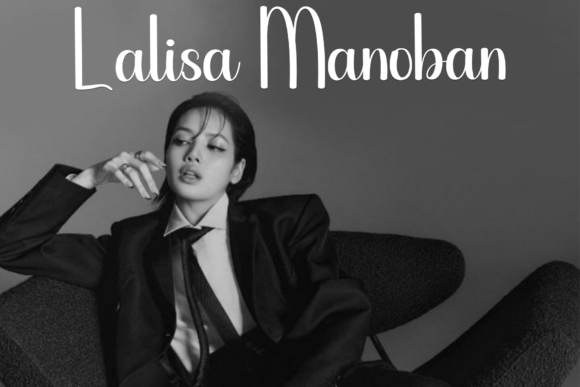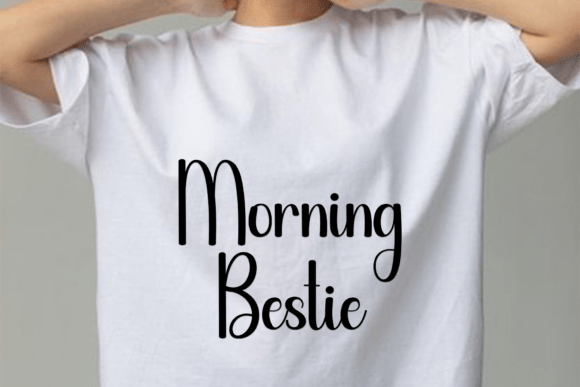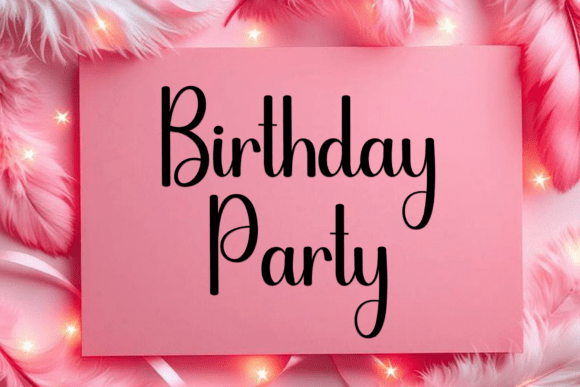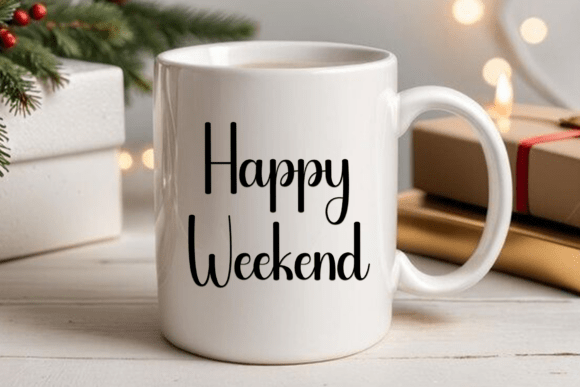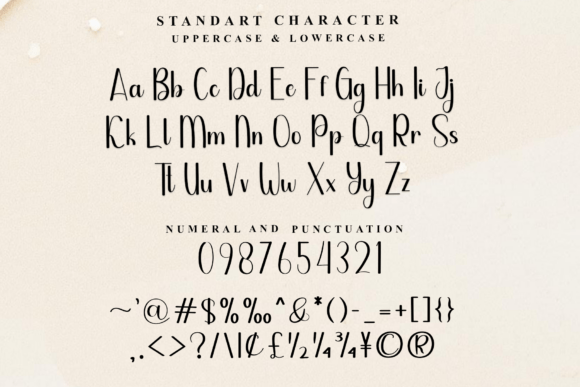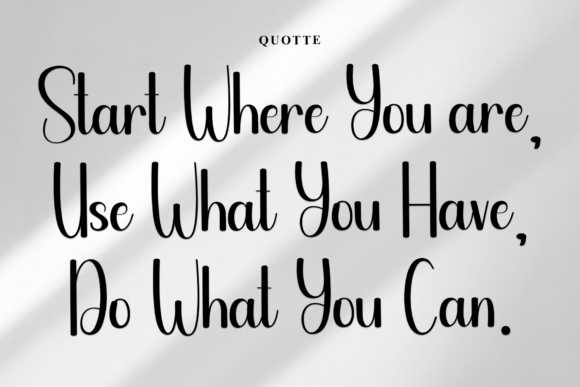
Discover the Charm of Green Clover Font: Elevate Your Designs with a Timeless Handwritten Style
Are you on the hunt for a font that adds a touch of elegance and whimsy to your designs? Look no further than the Green Clover Font. This lovely and timeless handwritten font is perfect for creating eye-catching logos, branding, and quotes that will leave a lasting impression on your audience. In this article, we’ll dive into the world of Green Clover Font and explore its unique features, benefits, and uses.
A Unique and Beautiful Touch
One of the standout features of Green Clover Font is its unique and beautiful touch. Every letter has been carefully crafted to bring a sense of personality and charm to your designs. The font’s handwritten style gives it a warm and inviting feel, making it perfect for designs that require a personal touch. Whether you’re creating a logo, branding materials, or quotes, Green Clover Font is sure to make your design come alive!
Green Clover Font is a versatile font that’s perfect for designers and crafters alike. Its timeless style makes it suitable for a wide range of design projects, from modern branding to vintage-inspired crafts. Whether you’re creating digital designs or handmade crafts, Green Clover Font is the perfect choice for adding a touch of elegance and sophistication.
Benefits of Using Green Clover Font
- Unique and eye-catching designs: Green Clover Font’s handwritten style and unique lettering make it perfect for creating designs that stand out from the crowd.
- Timeless appeal: Unlike trendy fonts that quickly go out of style, Green Clover Font has a timeless appeal that will keep your designs looking fresh for years to come.
- Versatile: Green Clover Font is suitable for a wide range of design projects, from logos and branding to quotes and crafts.
- Easy to read: Despite its decorative style, Green Clover Font is easy to read, making it perfect for designs that require a clear and concise message.
Uses for Green Clover Font
- Logos and branding: Create a lasting impression with a custom logo or branding materials that showcase your unique style.
- Quotes and posters: Add a touch of elegance and sophistication to your quotes and posters with Green Clover Font.
- Crafts and DIY projects: Use Green Clover Font to add a personal touch to your handmade crafts and DIY projects.
- Digital designs: From social media graphics to website headers, Green Clover Font is perfect for adding a touch of personality to your digital designs.
Tips for Using Green Clover Font
- Use it sparingly: While Green Clover Font is beautiful, it can be overwhelming if used too much. Use it sparingly to add a touch of elegance and sophistication to your designs.
- Pair it with complementary fonts: Pair Green Clover Font with complementary fonts to create a unique and eye-catching design.
- Experiment with colors and textures: Don’t be afraid to experiment with different colors and textures to add depth and interest to your designs.
In conclusion, Green Clover Font is a lovely and timeless handwritten font that’s perfect for designers and crafters alike. Its unique and beautiful touch, versatile style, and ease of use make it a great choice for a wide range of design projects. Whether you’re creating logos, branding materials, quotes, or crafts, Green Clover Font is sure to elevate your designs and leave a lasting impression on your audience.